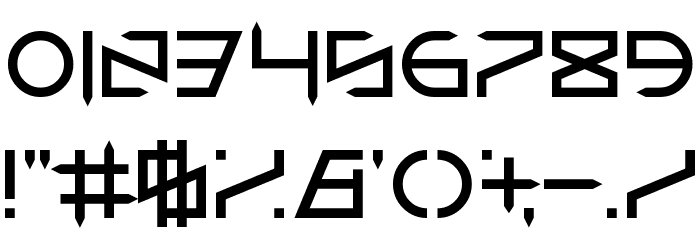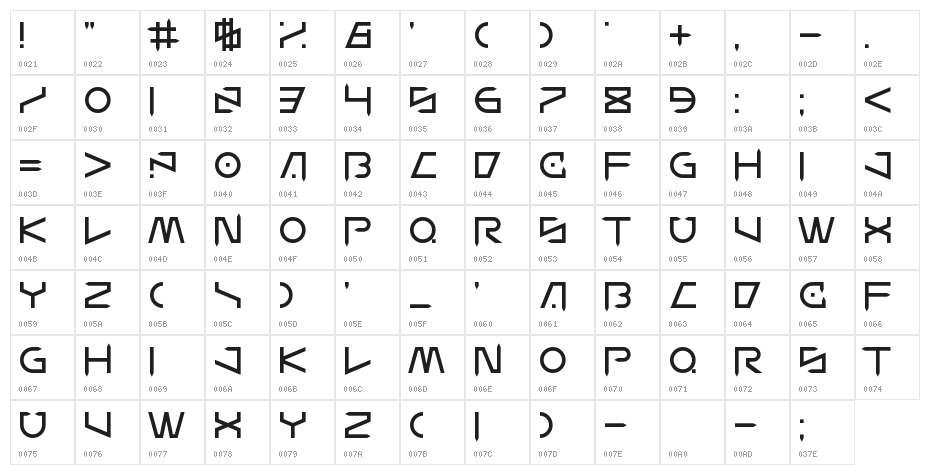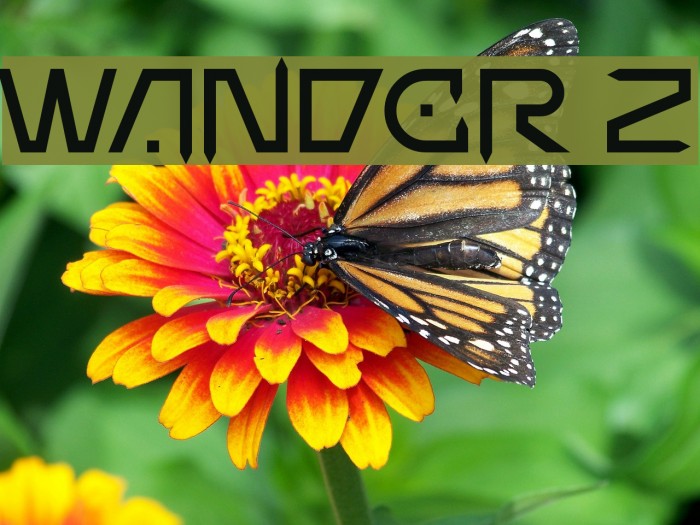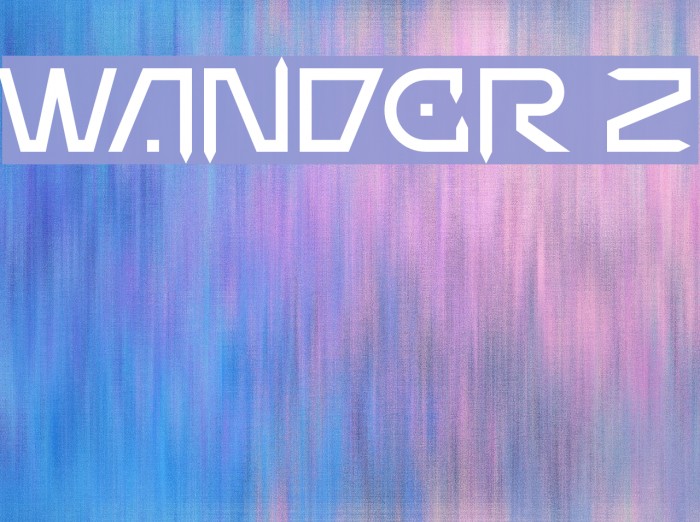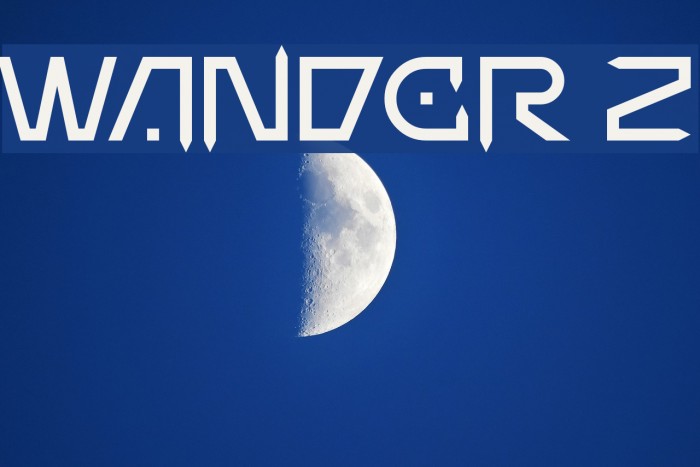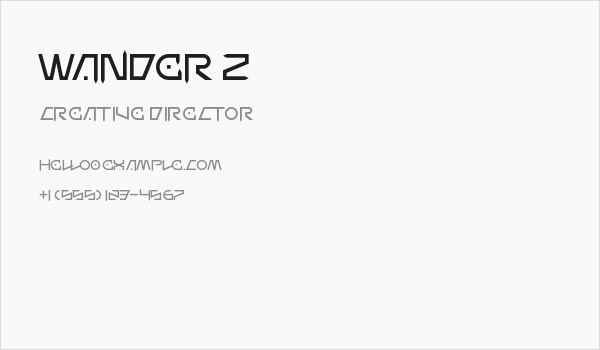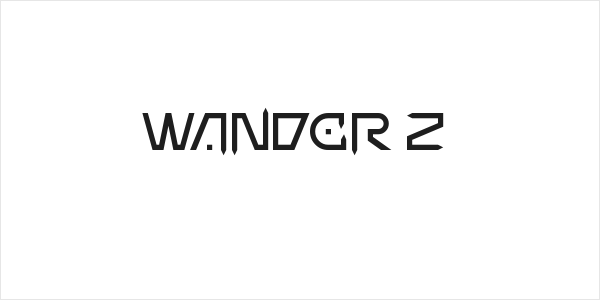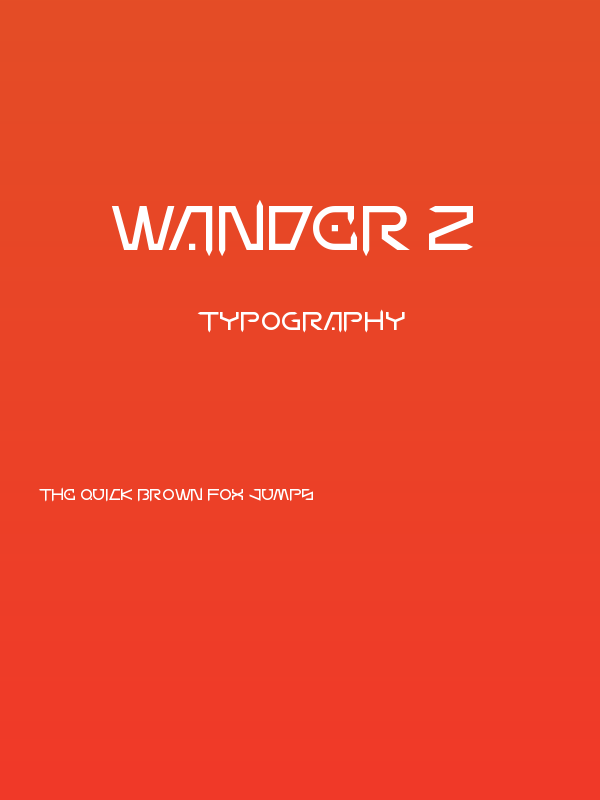
Wander Z Font
Wander Z Description
This font features a futuristic and geometric design, characterized by sharp angles and bold lines. The uppercase letters are distinct with a unique angular style that gives a sense of movement and modernity. The lowercase letters maintain the same geometric aesthetic, ensuring consistency across the typeface. Numbers are equally bold and angular, making them stand out. Special characters are designed to complement the overall style, adding to the font's cohesive look. This font is ideal for projects that require a modern and edgy appearance.
| Proposed Projects | Ideal for sci-fi themed designs, tech branding, video game titles, and modern posters. |